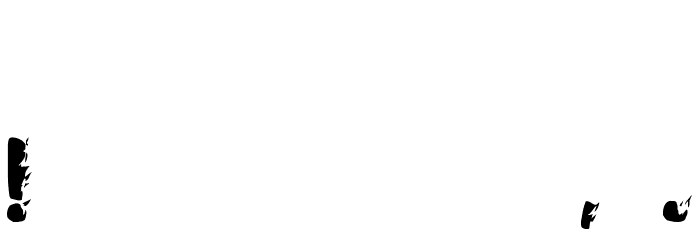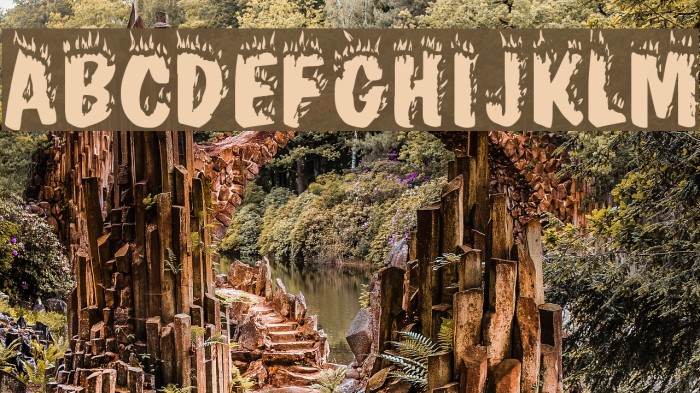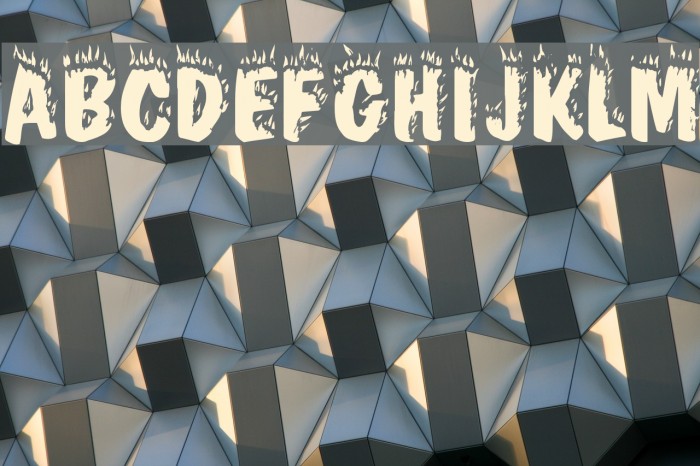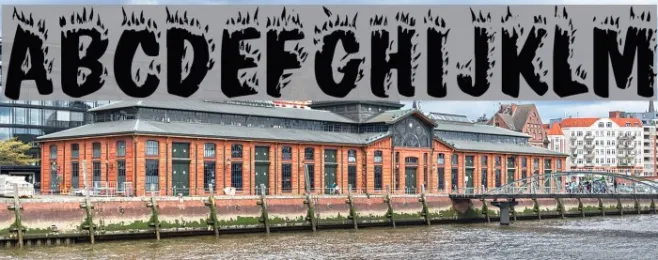
Fireworksfont Font
This font features bold, uppercase letters with a dynamic, fiery design. Each character appears to be engulfed in stylized flames, giving it a sense of movement and energy. The edges are jagged and irregular, enhancing the explosive theme. The font is highly decorative and eye-catching, making it ideal for attention-grabbing headlines or themed events. The unique style is consistent across all characters, maintaining a cohesive look while allowing each letter to stand out with its own fiery flair.
A bold, fiery decorative font with flame-like accents on each letter.
- Proposed Projects: Ideal for event posters, party invitations, or any design needing a dynamic, explosive theme.